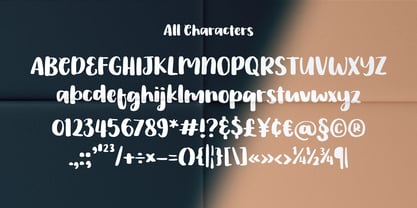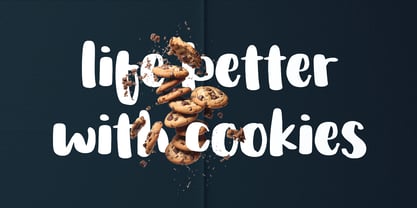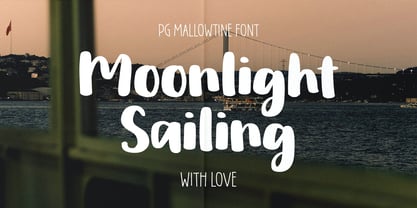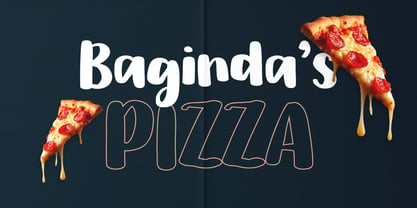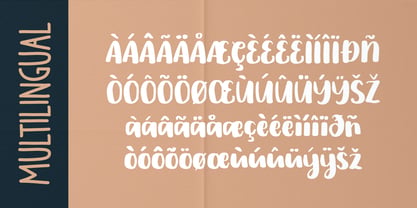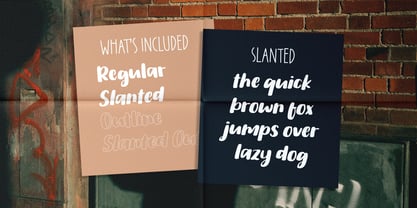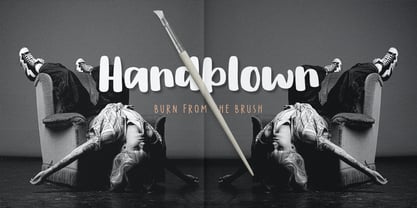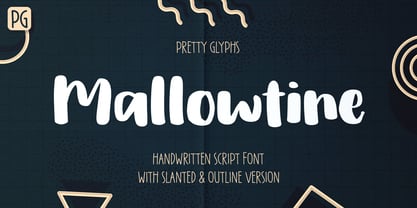
PG Mallowtine
by Pretty Glyphs
PG Mallowtine is a playful handwritten font that exudes a natural, friendly feel with its smooth, rounded strokes. Designed to impart a casual yet charming personality, this font is ideal for branding, quotes, packaging, and various creative projects. It is available in four versatile styles—Regular, Slanted, Outline, and Slanted Outline—providing you with the flexibility to mix, match, and create eye-catching designs effortlessly.